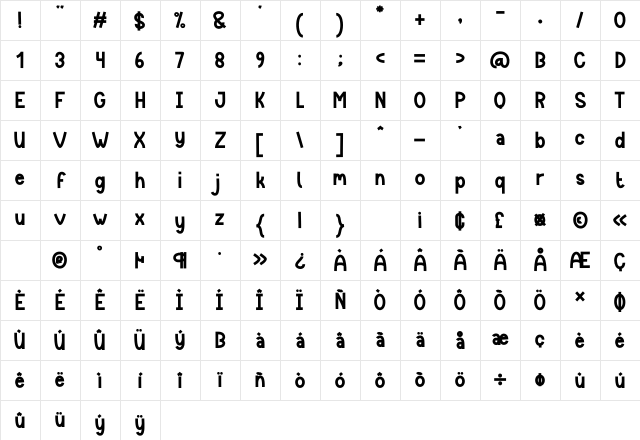
Baby Mockup Regular Free Font
Baby Mockup Regular
Design Context for Baby Mockup
Baby Mockup is a composed and adaptable typeface that performs quietly and consistently across a wide range of design contexts.